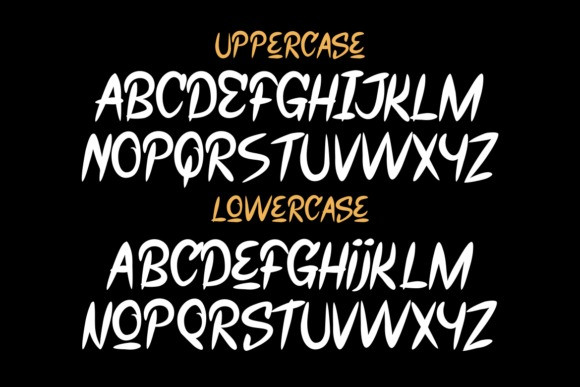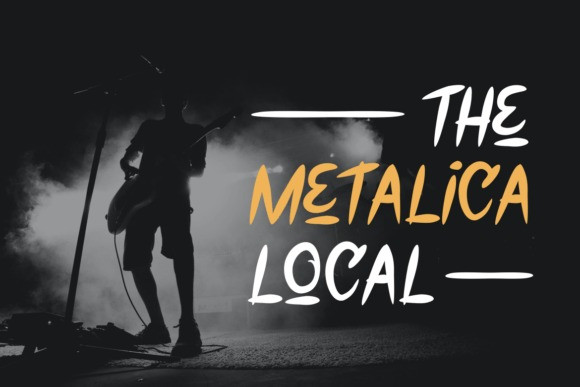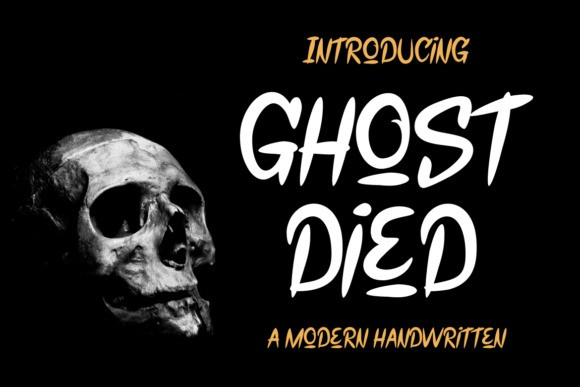
Ghost Died Font
Ghost Died Font is both authentic and tremendous, with handcrafted letters that capture the essence of traditional calligraphy. The letters are bold and expressive, with flourishes and swashes that add drama and flair. Its elegant and timeless appearance makes it perfect for formal events, branding, and high-end products that demand a sense of grandeur and sophistication.